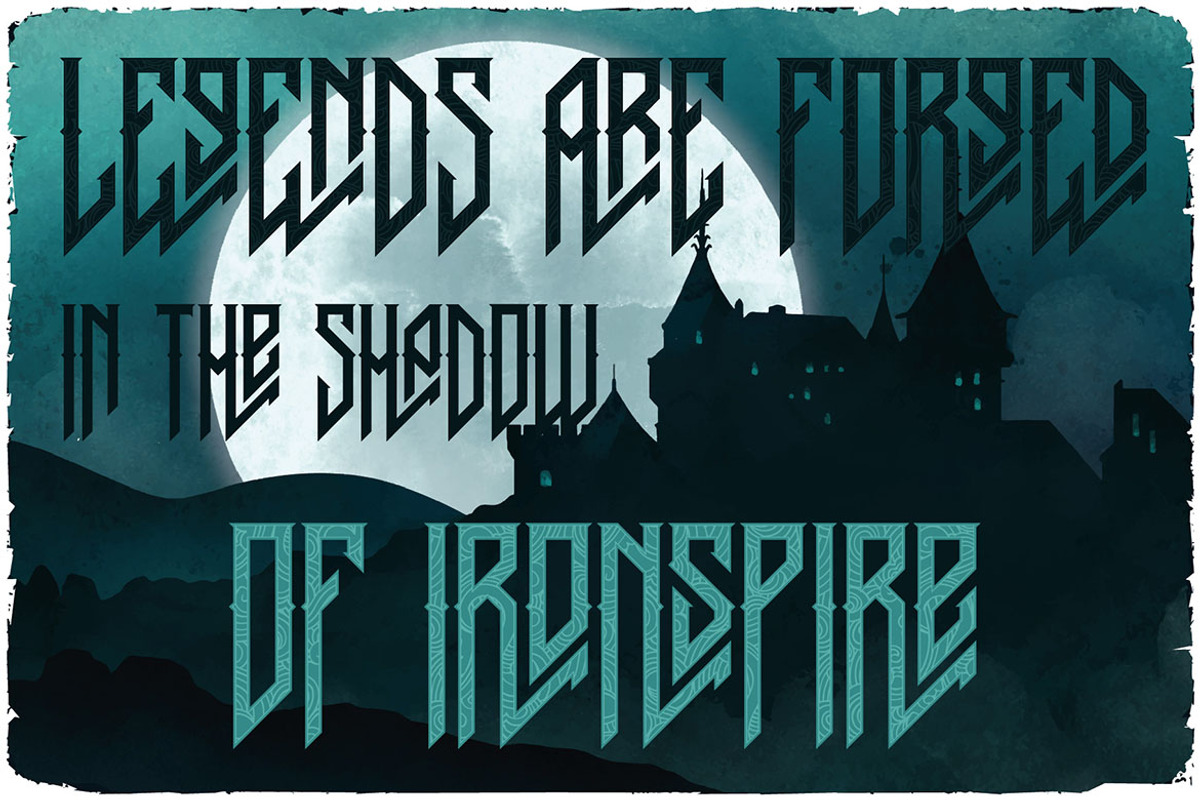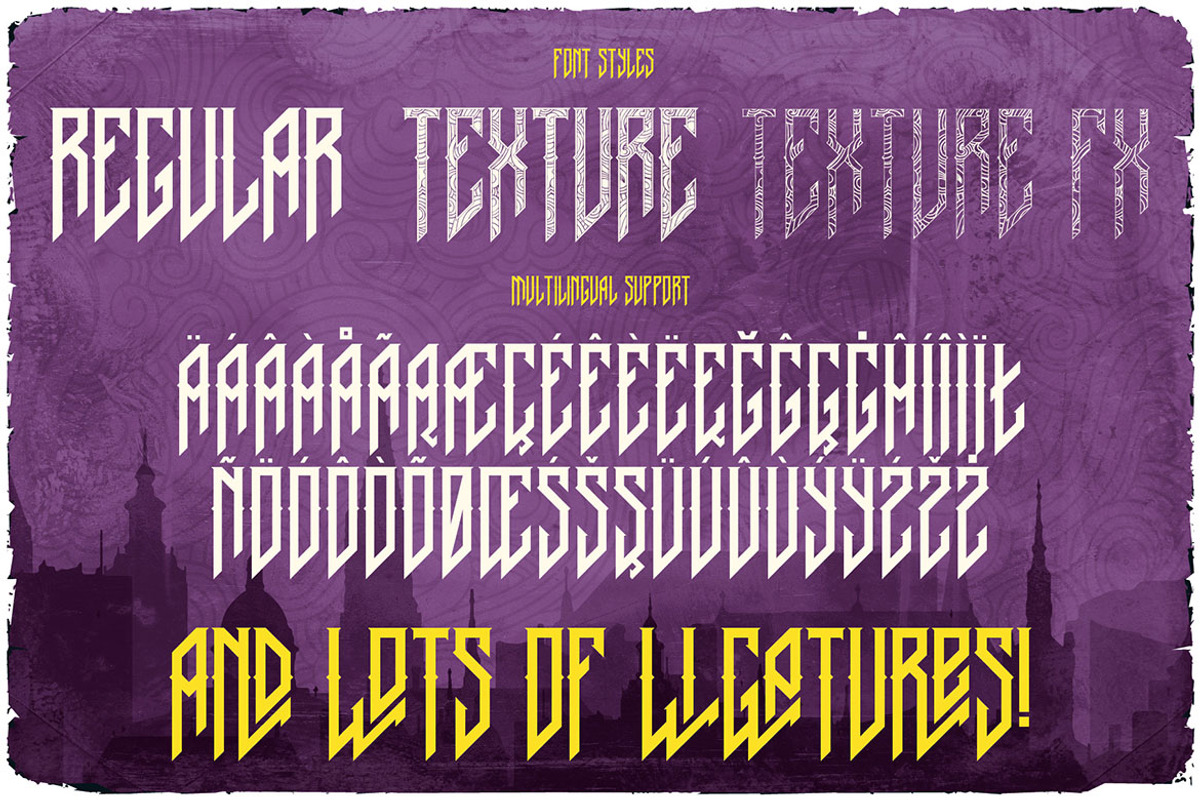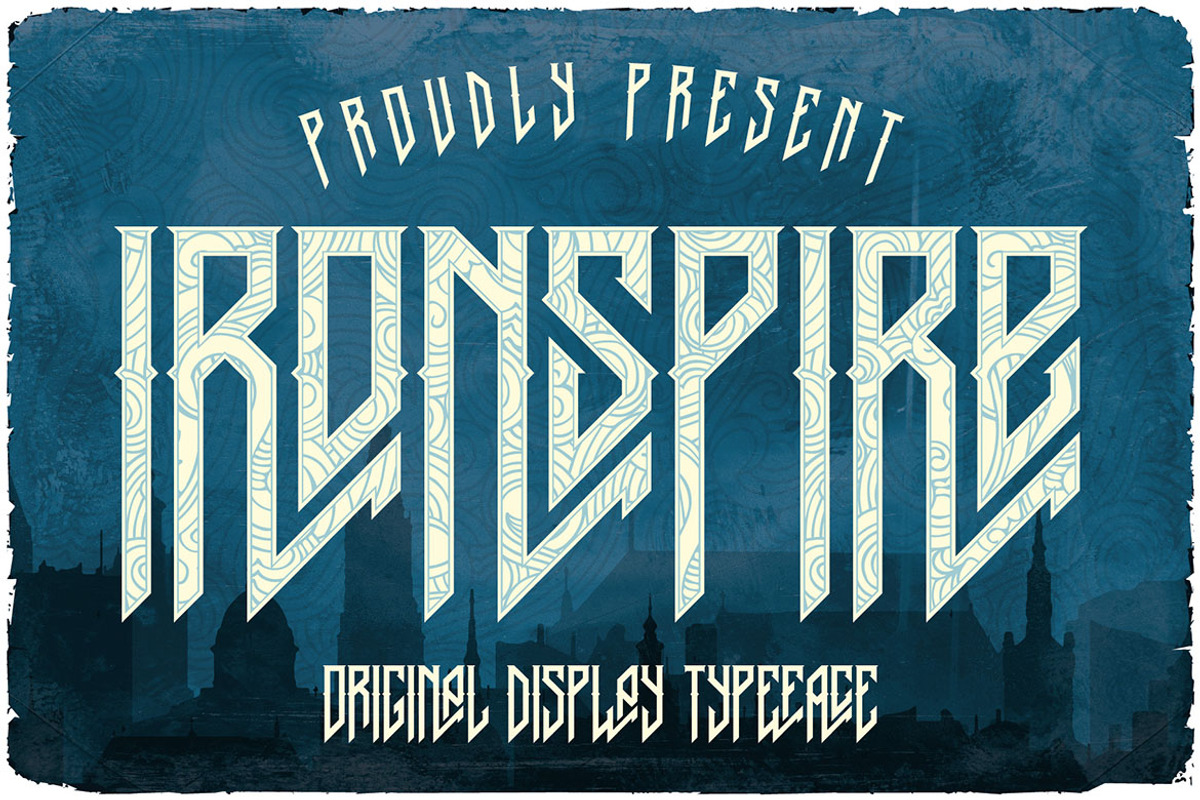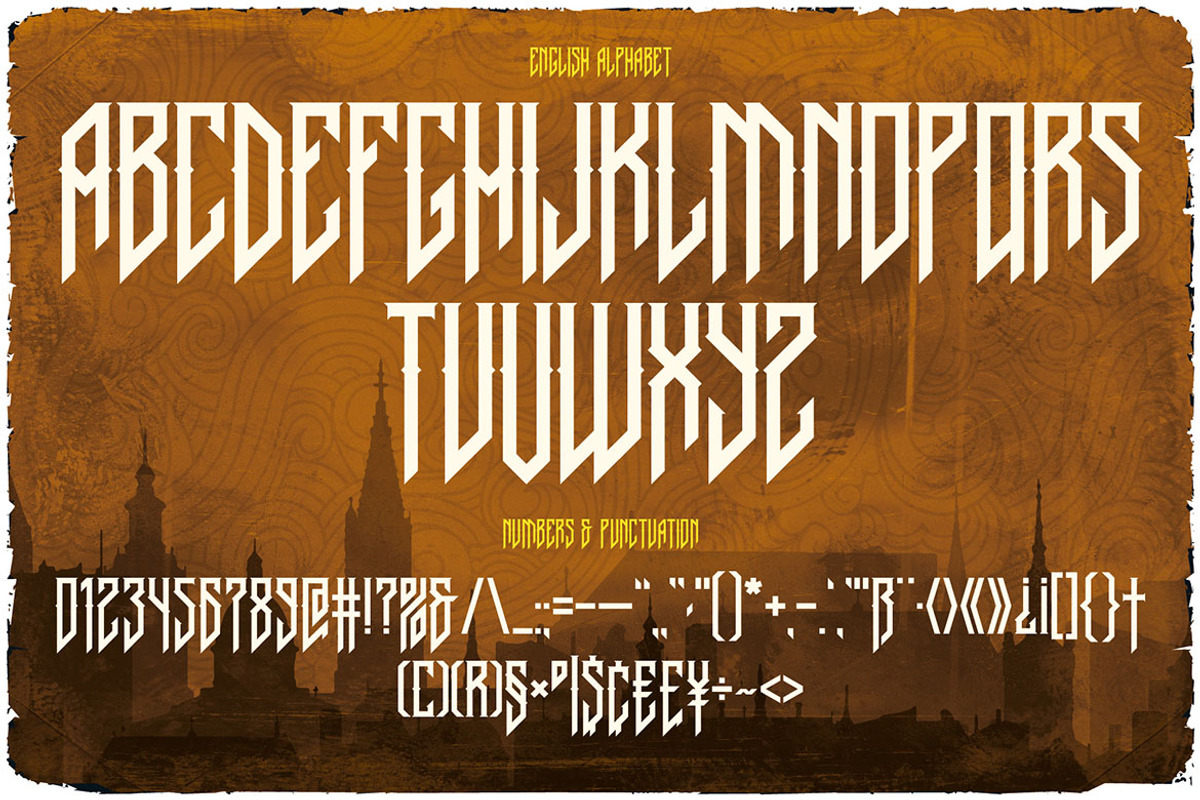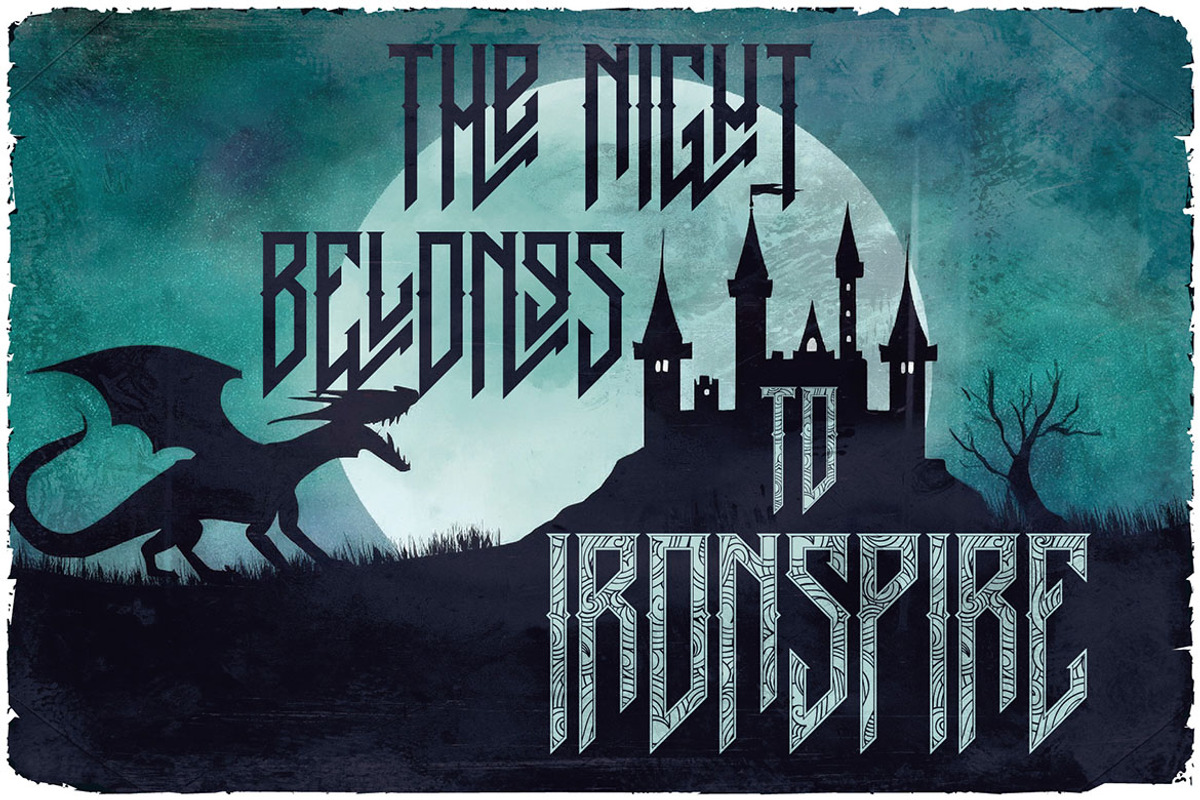
Ironspire - Blackletter Layered Font
Unique, playful, sharp, retro, condensed & ligature display blackletter font. Comes with multilingual support & a lot of ligatures + 3 font versions - great for your new logo, monogram or branding project.
- 3 font versions - regular, texture & texture FX (layered font)
- Multilingual support, ligatures & alternates
- Great for your new logo, monogram or branding project